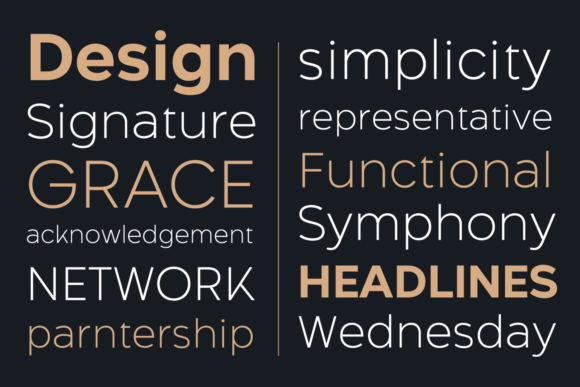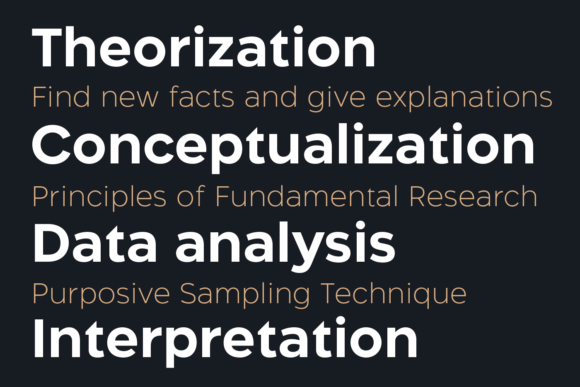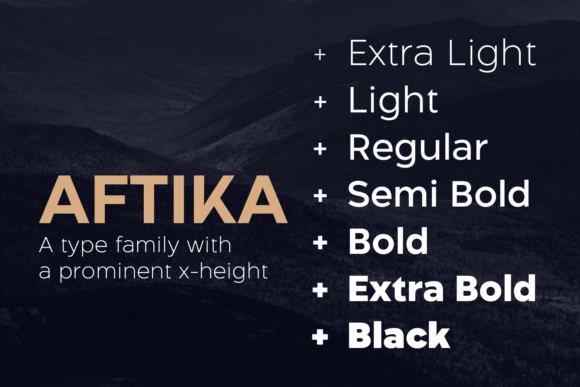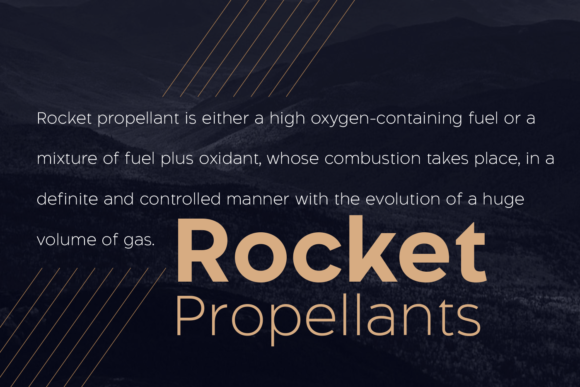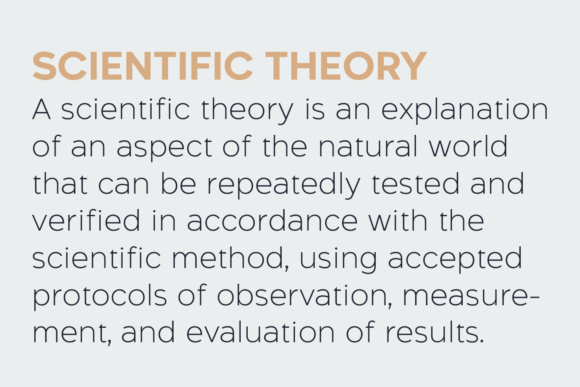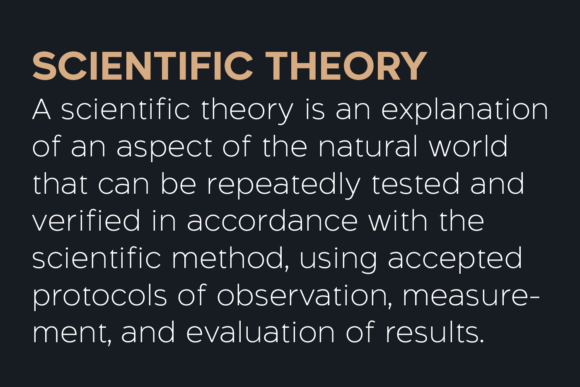
Aftika Font: A Clean Geometric Sans Serif for Modern Design
In the world of typography, a font can make or break a design. For designers and crafters, finding the perfect font that embodies the right balance of style, versatility, and readability is a constant quest. This is where Aftika Font comes into play – a clean geometric sans serif family that is taking the design world by storm. With its seven weights and prominent x-height, Aftika is well-suited for a wide range of applications, from advertising and packaging to editorial and publishing, logos, branding, posters, billboards, signage, and even small text for print or digital screens.
The Characteristics of Aftika Font
Aftika Font is a geometric sans serif typeface that boasts a clean and modern aesthetic. Its design is characterized by a prominent x-height, which provides excellent readability, especially in digital formats. The font family consists of seven weights, ranging from Thin to Bold, allowing designers to choose the perfect weight to suit their design needs. This versatility makes Aftika an excellent choice for various design applications, from body text to headlines.
Applications of Aftika Font
Aftika Font is an incredibly versatile typeface that can be used in a wide range of design applications. Some of the most notable uses of Aftika include:
- Advertising: Aftika’s clean and modern design makes it an excellent choice for advertising campaigns, where standing out is crucial.
- Packaging: The font’s geometric shape and prominent x-height make it perfect for packaging design, where clarity and readability are essential.
- Editorial and Publishing: Aftika’s elegant design and range of weights make it suitable for editorial and publishing projects, such as magazines, newspapers, and books.
- Logos and Branding: The font’s modern aesthetic and versatility make it an excellent choice for logos and branding projects, where a unique and memorable identity is crucial.
- Posters and Billboards: Aftika’s bold weights and clean design make it perfect for posters and billboards, where eye-catching typography is essential.
- Signage: The font’s geometric shape and prominent x-height make it suitable for signage, where clarity and readability are vital.
- Digital Screens: Aftika’s clean design and range of weights make it an excellent choice for digital screens, where adaptability and readability are crucial.
Why Choose Aftika Font?
With so many fonts available, why choose Aftika? Here are a few reasons why Aftika stands out:
- Versatility: Aftika’s range of weights and clean design make it suitable for a wide range of design applications.
- Readability: The font’s prominent x-height and geometric shape provide excellent readability, even in small text sizes.
- Modern Aesthetic: Aftika’s clean and modern design make it perfect for designers looking for a font that embodies a contemporary feel.
- Ease of Use: Aftika is easy to use and pairs well with a variety of fonts, making it an excellent addition to any design project.
In conclusion, Aftika Font is a versatile and modern geometric sans serif typeface that is perfect for designers and crafters looking for a clean and elegant font. With its seven weights, prominent x-height, and clean design, Aftika is well-suited for a wide range of design applications, from advertising and packaging to editorial and publishing, logos, branding, posters, billboards, signage, and digital screens. Whether you’re working on a print or digital project, Aftika is an excellent choice for any design need.